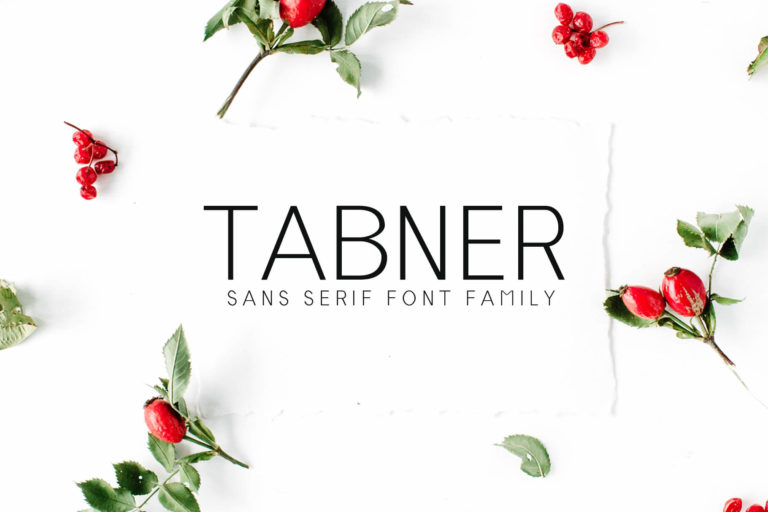
- Tabner Sans Serif Typeface
Tabner Regular
Tabner Thin
Tabner Light
Tabner Medium
Tabner Bold
Tabner Black
Tabner Sans Serif Typeface is lovely clean sans serif font family of 6 fonts. It was designed in a stylized appearance for both headlines and texts. Morover, it is perfect for branding, wedding materials, magazines, logos, headlines, banners and templates, fashion, titles, logotypes, advertising, short phrases, quotes, signage, and all sorts of advertising.
- Regular, Thin, Light, Medium, Bold and Black Weights
Tabner Font Features:
- Uppercase Multilingual Letters
- Lowercase Multilingual Letters
- Non English Characters ( Latin Supplement )